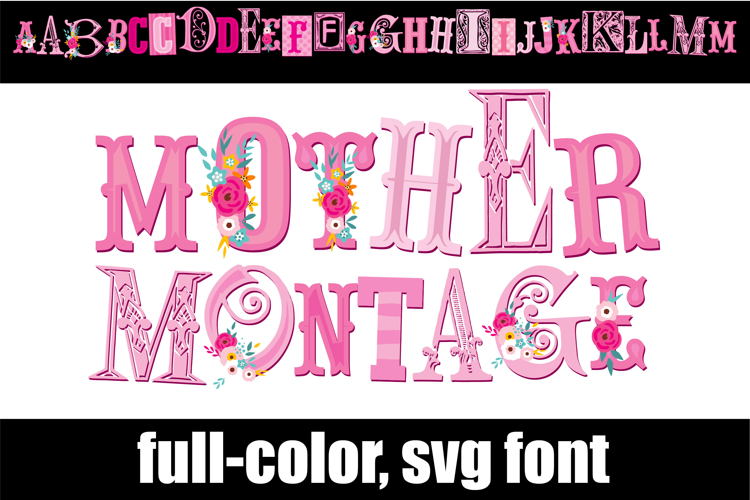
Mother Montage Color Font
This full-color, font is a mix of font styles in pinks and florals. There is an alt case of additional colors of each letter that you can access through your system's character map.